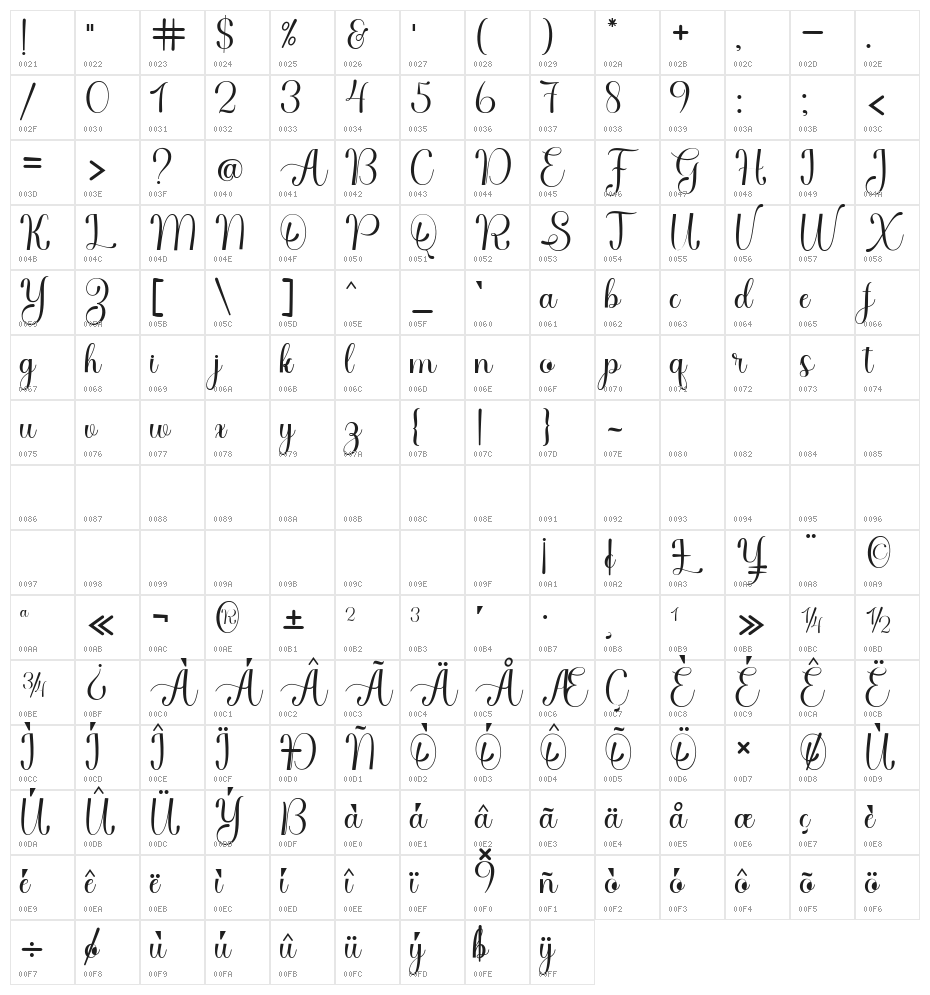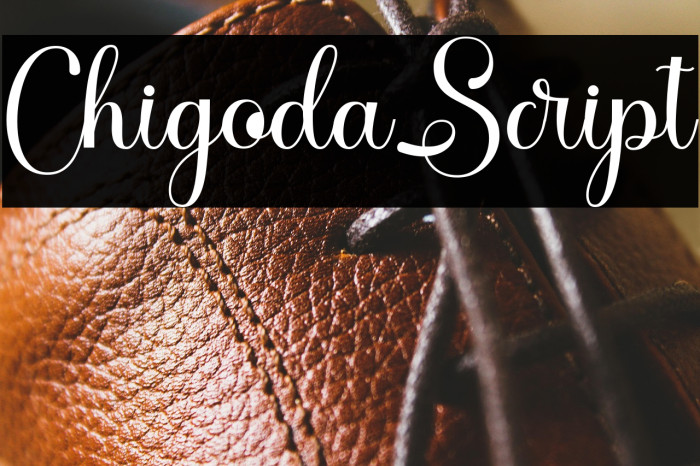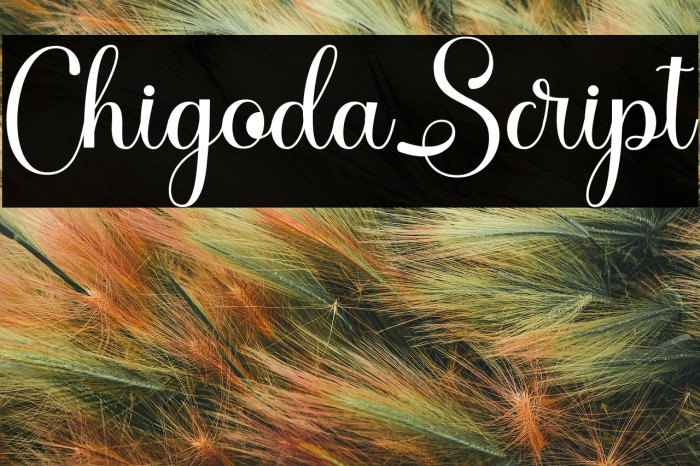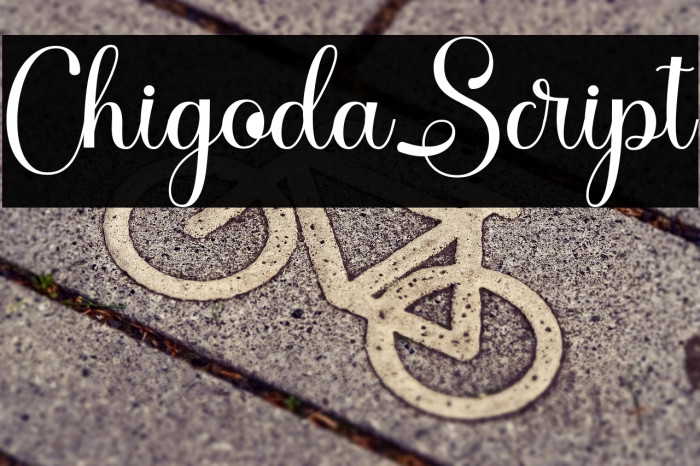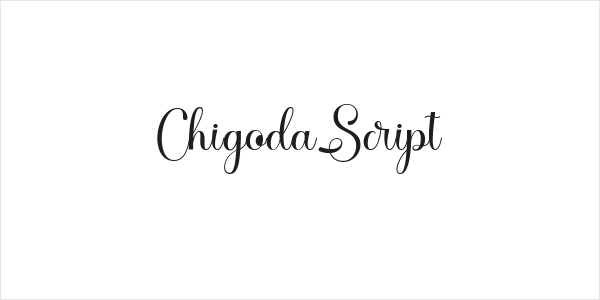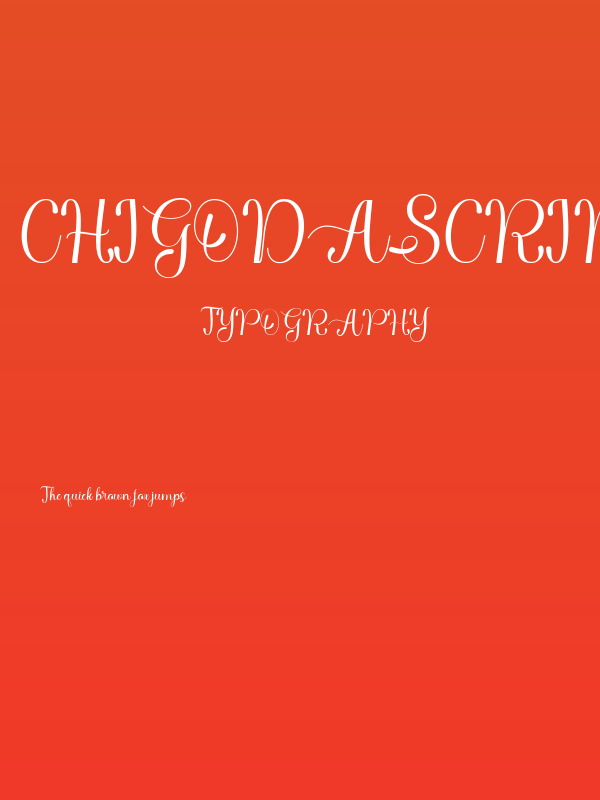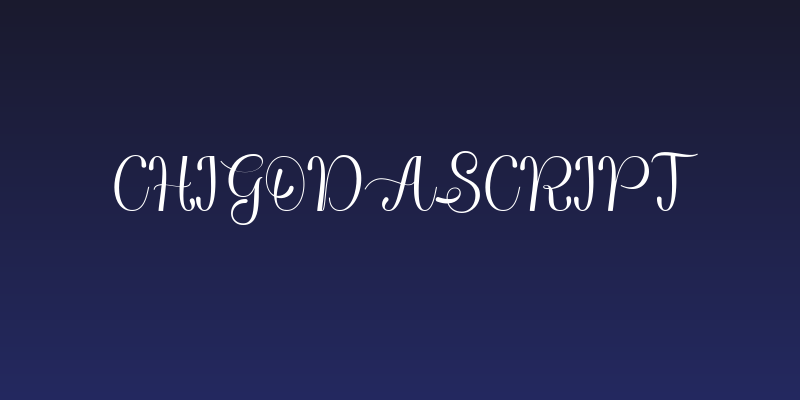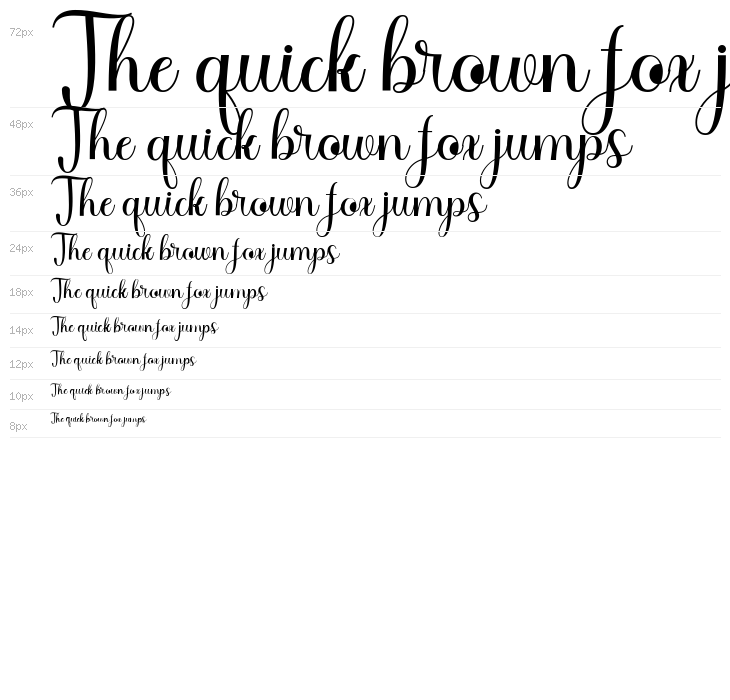
ChigodaScript Font
ChigodaScript Description
This font features a flowing, elegant script style with a modern touch. The uppercase letters are characterized by their graceful loops and swirls, giving them a sophisticated appearance. The lowercase letters maintain a consistent flow, with some characters extending below the baseline, adding to the font's dynamic nature. The numerals are distinct and easy to read, with a slight slant that complements the overall script style. Special characters are well-integrated, maintaining the font's cohesive look. This font is ideal for projects that require a touch of elegance and modernity.
| Use Case | Logos, Invitations, Branding |
| Proposed Projects | Ideal for wedding invitations, branding, greeting cards, and elegant packaging designs. |